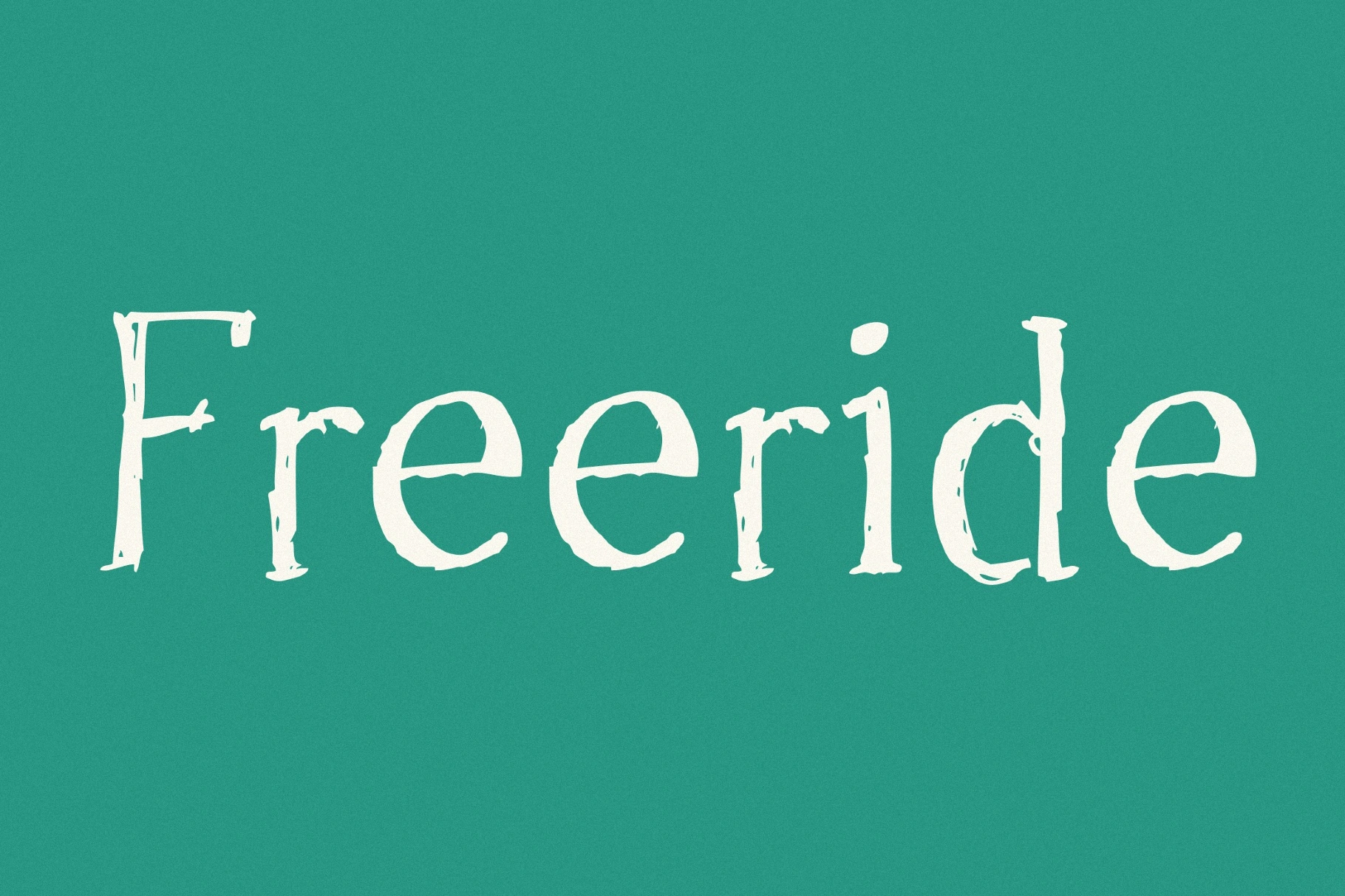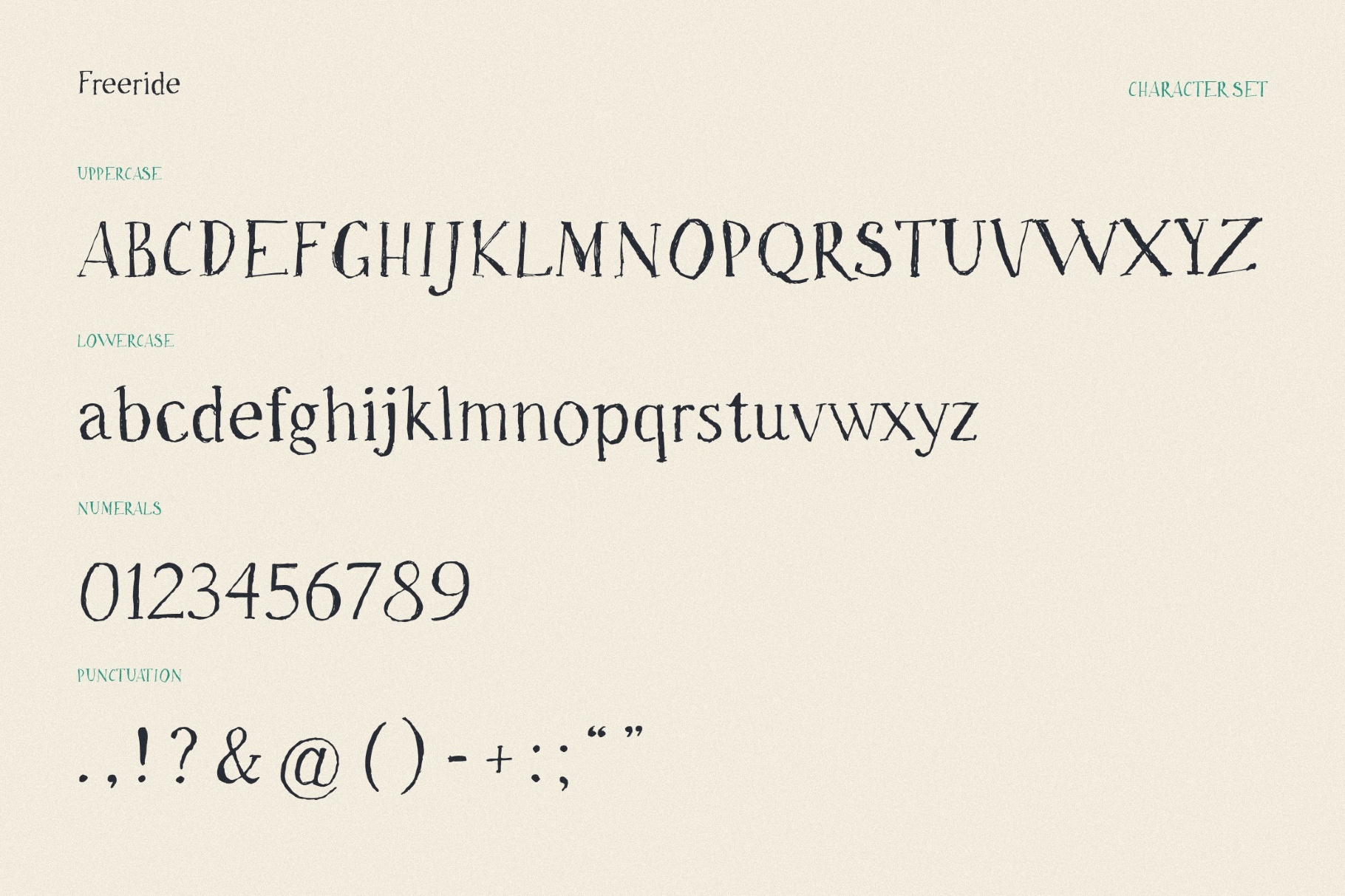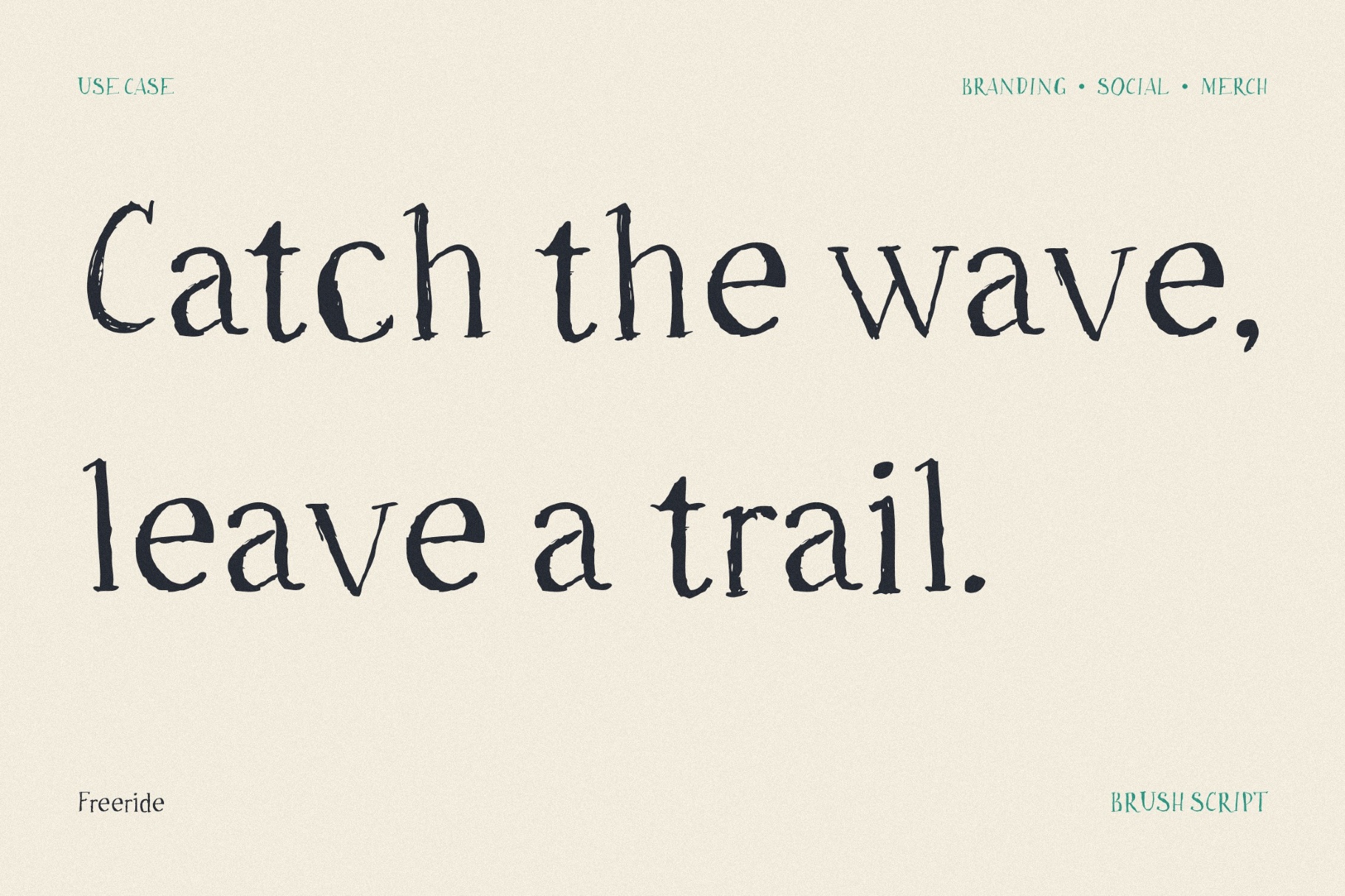
Freeride Grunge Serif
Freeride
A narrow serif Freeride with worn edges and hand-inked irregularity echoes vintage typewritten notes, folk magazines, and old field journals. So you will have a modest, thoughtful, and fragile result in book covers, personal essays, café menus, craft labels, stationery, classroom materials, and diary-style social posts.